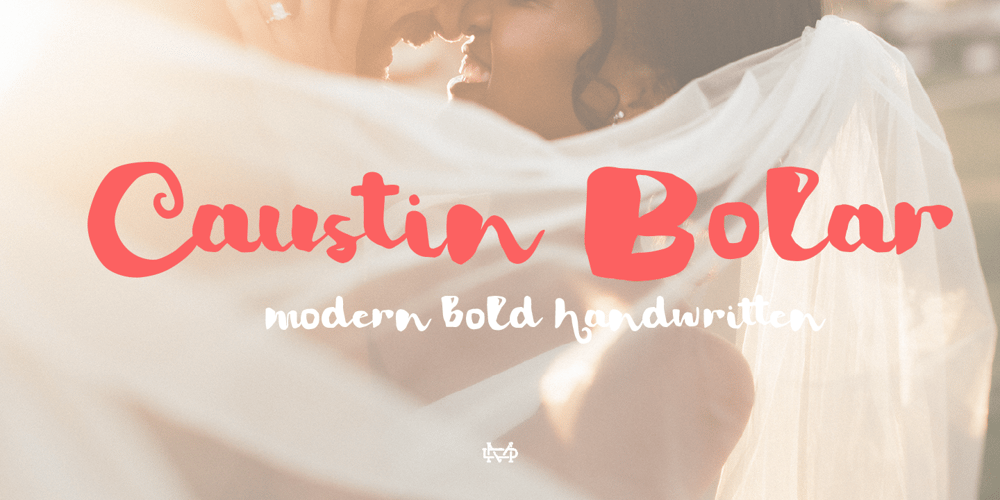
Caustin Bolar
Caustin Bolar font
Caustin Bolar Font Family was designed by madededuk and published by madeDeduk. Caustin Bolar contains 1 styles and family package options. Really excited to introduce Caustin Bolar is a bold brush script and will be perfect for all your designs project. Uppercase Lowercase Number & Symbol International Glyphs Ligature Hope you enjoy it.